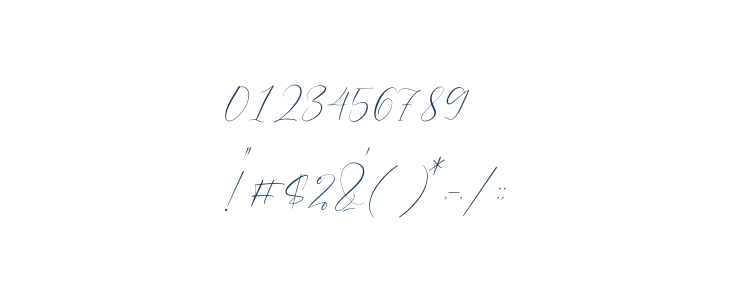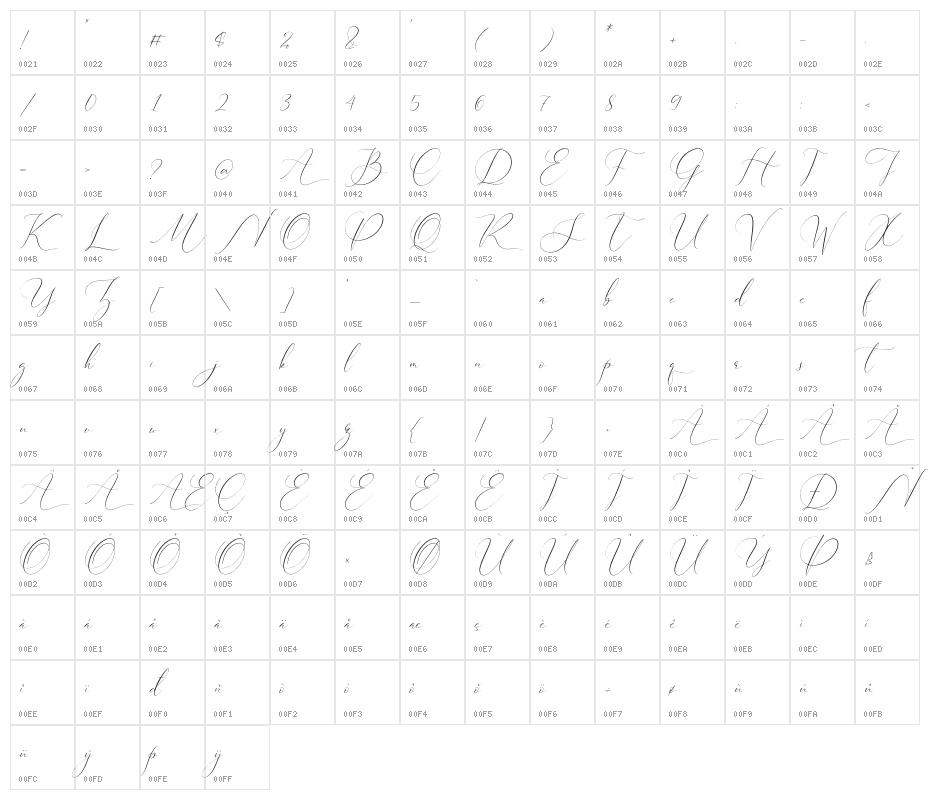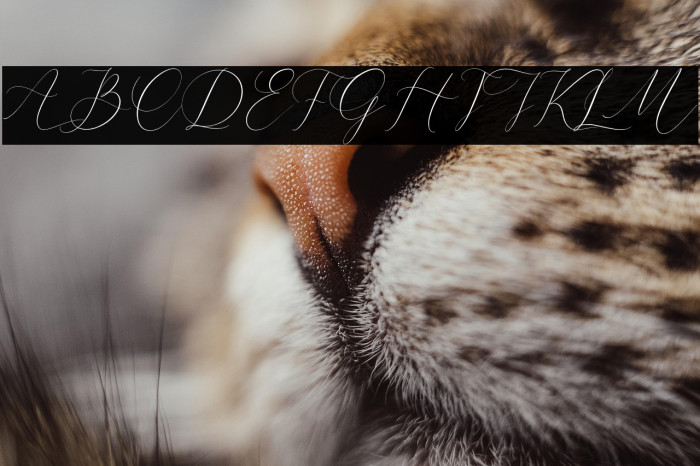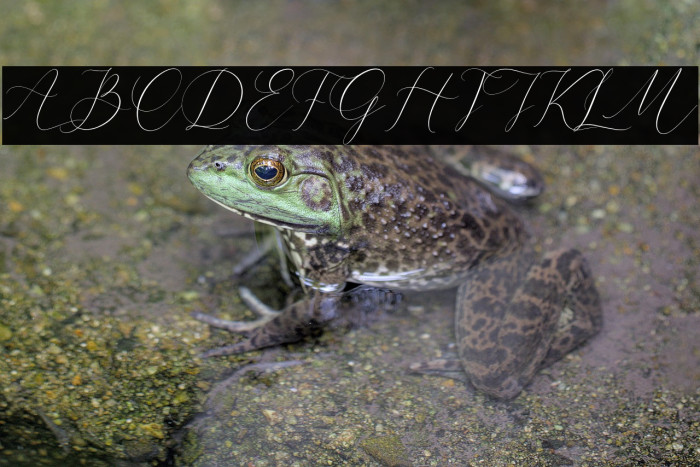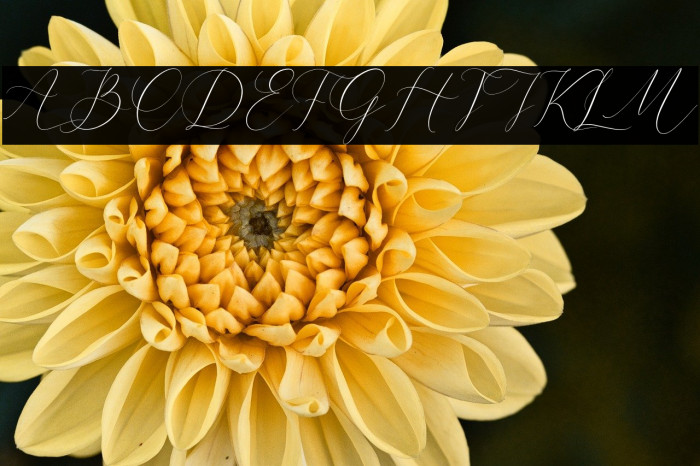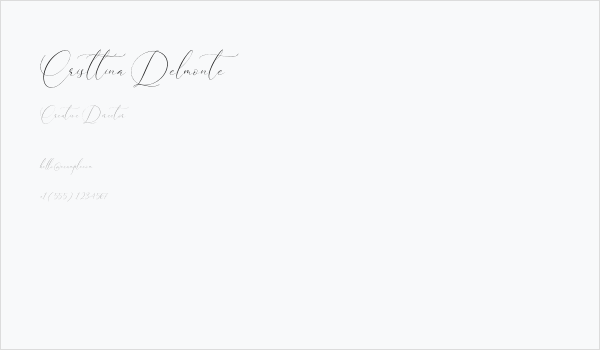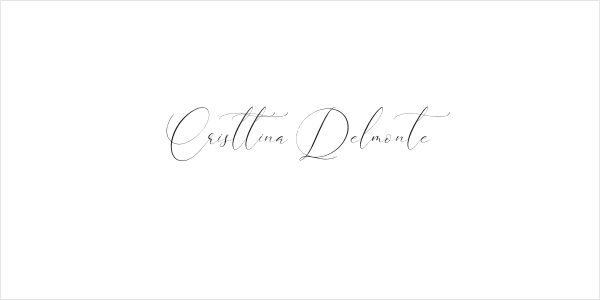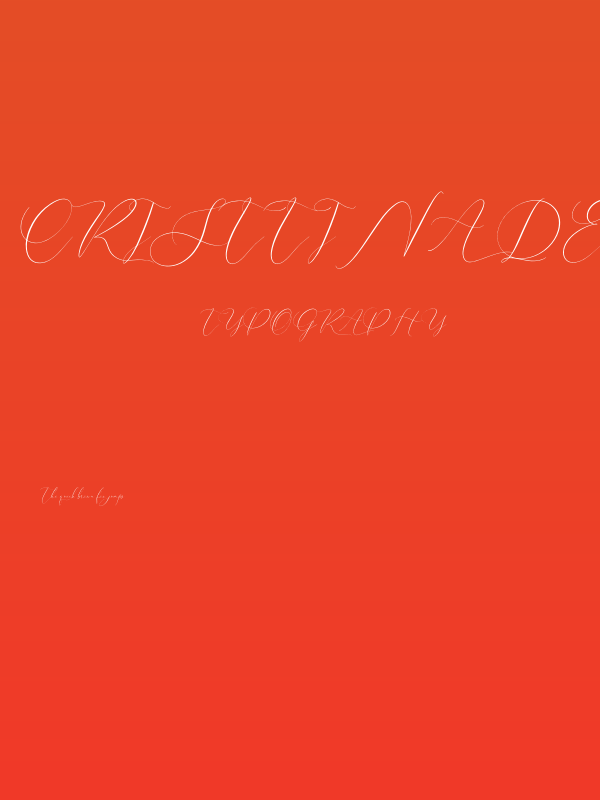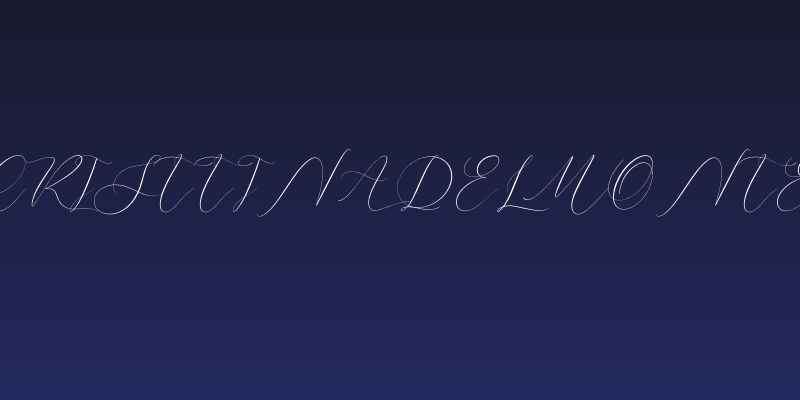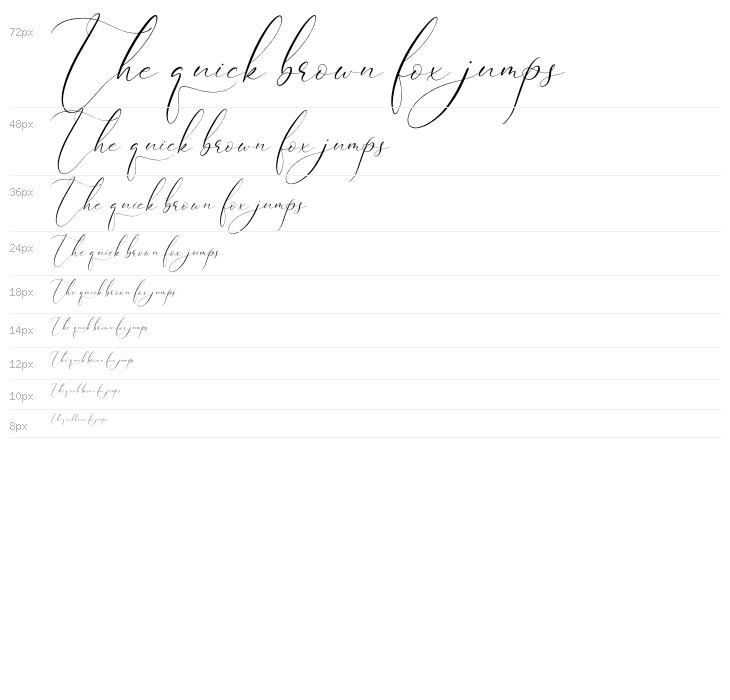
Cristtina Delmonte Font
Cristtina Delmonte Description
This elegant script font features a flowing, cursive style with delicate, thin strokes that give it a sophisticated and graceful appearance. The uppercase letters are tall and slightly slanted, while the lowercase letters are more compact with intricate loops and swashes. The numerals maintain the same elegant style, with a consistent stroke width that complements the letters. Special characters are designed with the same attention to detail, ensuring a cohesive look across all glyphs. This font exudes a sense of luxury and refinement, making it ideal for formal invitations, branding, and other high-end design projects.
| Overall Style | Elegant, Sophisticated |
| Use Case | Invitations, Branding, Stationery |
| Proposed Projects | Ideal for wedding invitations, luxury branding, elegant stationery, and high-end packaging. |